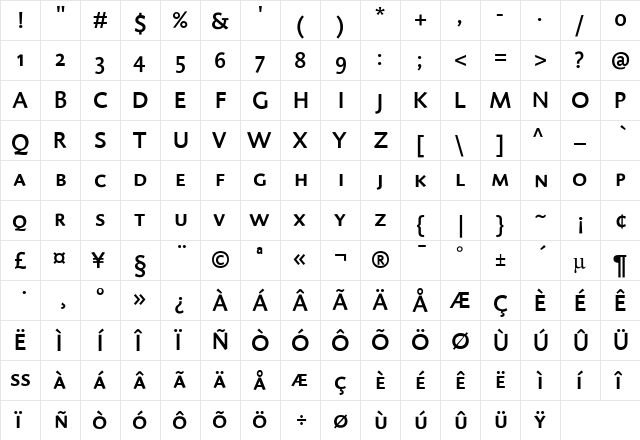
DTLCaspariTCapsMedium Regular Font Preview
DTLCaspariTCapsMedium Regular
Design Context for DTLCaspariTCapsMedium Typeface
DTLCaspariTCapsMedium is a composed and adaptable typeface that performs quietly and consistently across a wide range of design contexts.